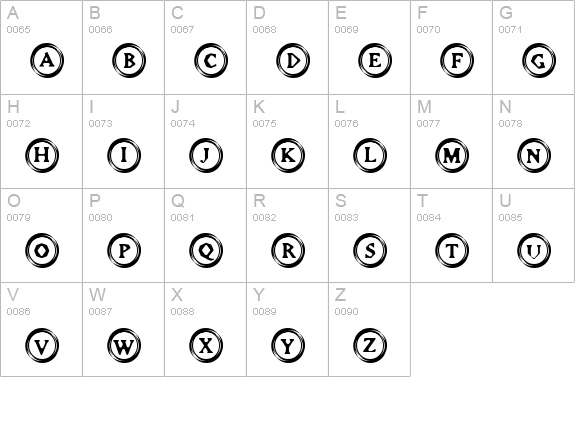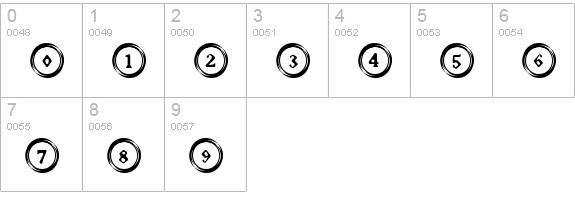
Elevator Buttons Two Font Details
Elevator Buttons Two font is a modern and stylish typeface that exudes sophistication and elegance. With its sleek lines and bold design, this font is perfect for adding a touch of class to any project. Elevator Buttons Two font is versatile and can be used for a variety of purposes, from branding to packaging to editorial design. What makes Elevator Buttons Two font even more appealing is that it is completely free to download at FontsMarket.com. Yes, you read that right - this high-quality font can be yours at no cost. So why wait? Elevate your designs with Elevator Buttons Two font today!